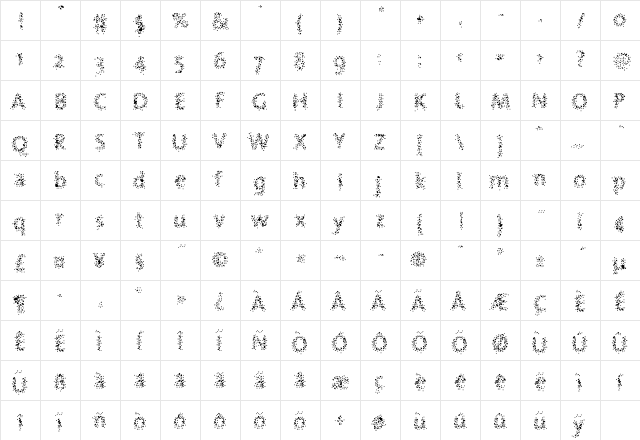
NebulaeMiddel Medium
NebulaeMiddel is a composed and adaptable typeface that performs quietly and consistently across a wide range of design contexts.